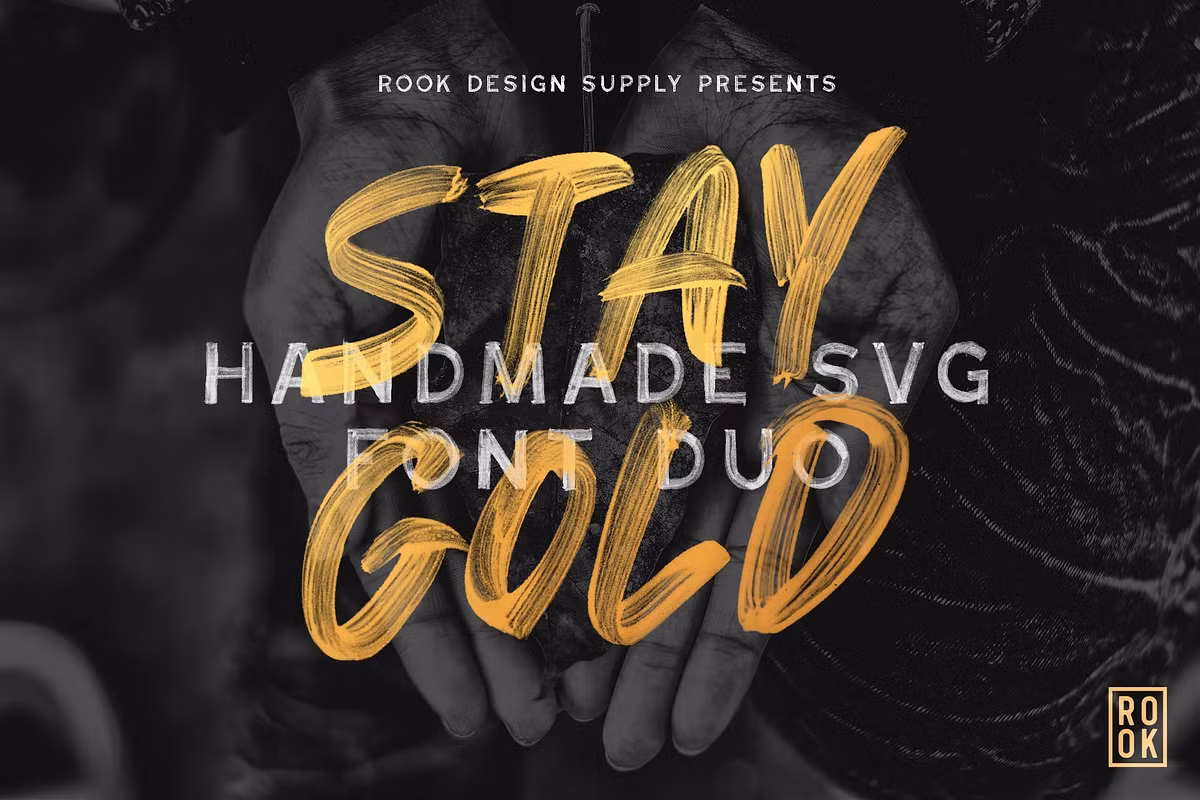
Stay Gold SVG Font Duo
Introducing Stay Gold, a dynamic font duo comprising two Opentype SVG fonts: Tremblay and Silva. Designed by Greg Nicholls and offered by Rook Design Supply, these fonts capture the essence of hand-painted lettering, maintaining the original textures and nuances of the scanned letters.
Features:
• Styles Included: Tremblay (brush display) and Silva (hand display)
• Character Set: Uppercase and lowercase letters, numerals, and basic punctuation
Stay Gold is ideal for projects that benefit from a handcrafted aesthetic, including:
• Logos
• Headlines
• Posters
• Branding materials
• Invitations